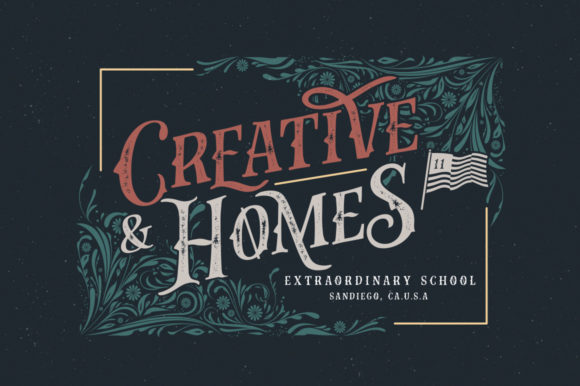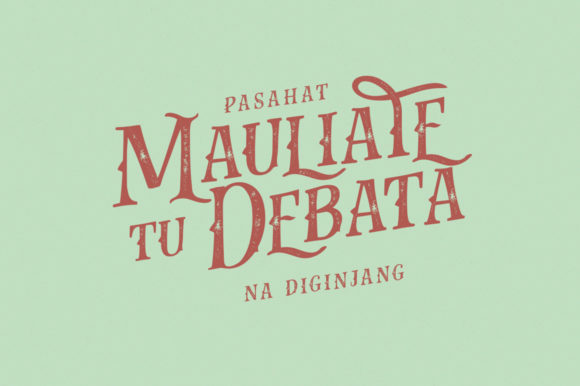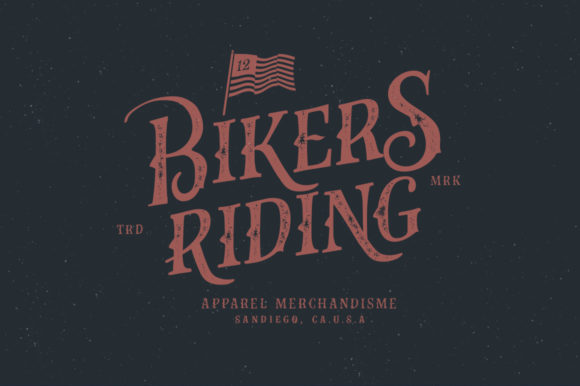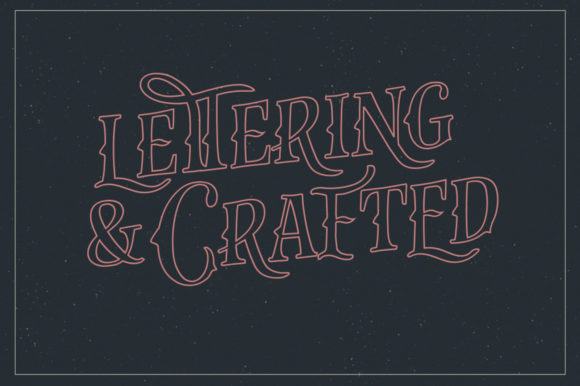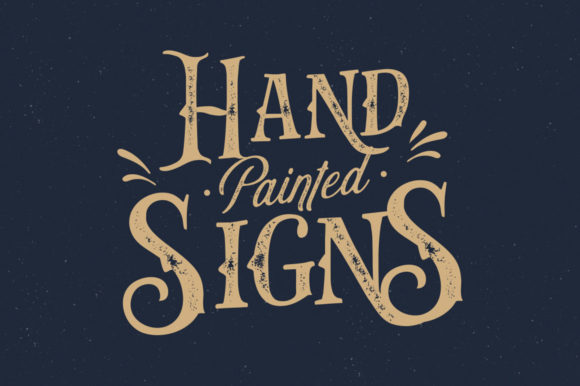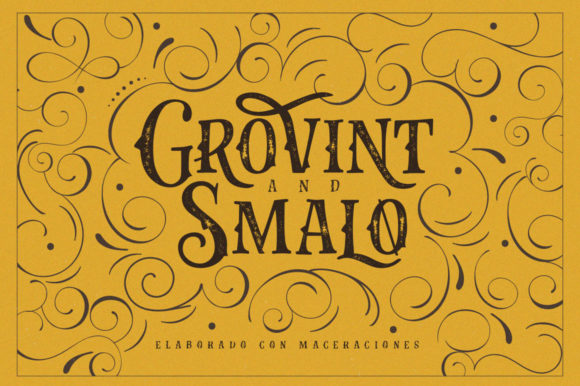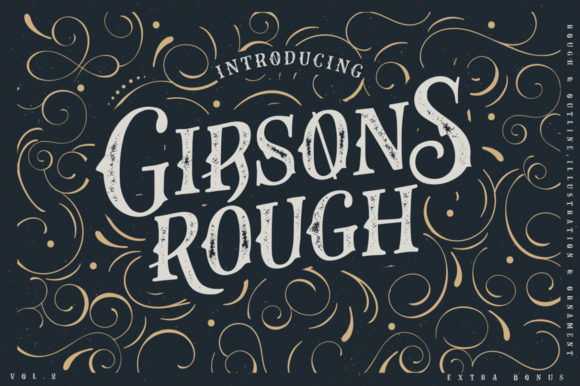
Discover the Timeless Charm of Gibsons Co Font: Elevate Your Designs with a Vintage Twist
Are you on the hunt for a font that adds a touch of nostalgia and sophistication to your design projects? Look no further than Gibsons Co Font. This amazing and strong vintage font boasts a unique appeal that will instantly make your designs stand out from the crowd. In this article, we’ll dive into the world of Gibsons Co Font, exploring its features, benefits, and uses, as well as provide tips on how to make the most of this incredible font.
What is Gibsons Co Font?
Gibsons Co Font is a carefully crafted vintage font that draws inspiration from classic typography. Its distinctive style is characterized by bold lines, elegant curves, and a nostalgic feel that’s reminiscent of a bygone era. This font is perfect for designers and crafters looking to add a touch of sophistication and whimsy to their projects.
Key Features of Gibsons Co Font
- Unique Appeal: Gibsons Co Font has a one-of-a-kind style that sets it apart from other fonts. Its distinctive charm is sure to capture the attention of your audience and leave a lasting impression.
- Vintage Inspiration: This font draws inspiration from classic typography, making it perfect for projects that require a nostalgic or retro feel.
- Versatility: Gibsons Co Font is incredibly versatile and can be used for a wide range of design projects, from branding and advertising to packaging and crafting.
- Ease of Use: This font is easy to read and works well in various sizes, making it perfect for both digital and print applications.
Benefits of Using Gibsons Co Font
So, why choose Gibsons Co Font for your design projects? Here are just a few benefits of using this amazing font:
- Adds Visual Interest: Gibsons Co Font adds a touch of elegance and sophistication to any design project, making it perfect for designers looking to create visually stunning work.
- Evokes Emotion: The nostalgic feel of this font is sure to evoke emotions and create a connection with your audience.
- Stand Out from the Crowd: With its unique appeal, Gibsons Co Font is sure to make your designs stand out from the competition.
Uses of Gibsons Co Font
Gibsons Co Font is incredibly versatile and can be used for a wide range of design projects, including:
- Branding and Advertising: Use Gibsons Co Font to create eye-catching logos, posters, and advertisements that grab attention.
- Packaging: Add a touch of elegance to your product packaging with this beautiful font.
- Crafting: Gibsons Co Font is perfect for crafters looking to add a personal touch to their projects, from scrapbooking to card making.
- Digital Design: Use this font to create stunning digital designs, from social media graphics to website headers.
Tips for Using Gibsons Co Font
To make the most of Gibsons Co Font, here are a few tips to keep in mind:
- Experiment with Sizes: Try using Gibsons Co Font in different sizes to create visual interest and add emphasis to your designs.
- Pair with Other Fonts: Combine Gibsons Co Font with other fonts to create a unique and eye-catching look.
- Use in Combination with Images: Pair Gibsons Co Font with high-quality images to create stunning visual designs.
In conclusion, Gibsons Co Font is an amazing and strong vintage font that is sure to elevate your design projects. With its unique appeal, versatility, and ease of use, this font is perfect for designers and crafters looking to add a touch of sophistication and whimsy to their work. So why wait? Discover the timeless charm of Gibsons Co Font today and take your designs to the next level!